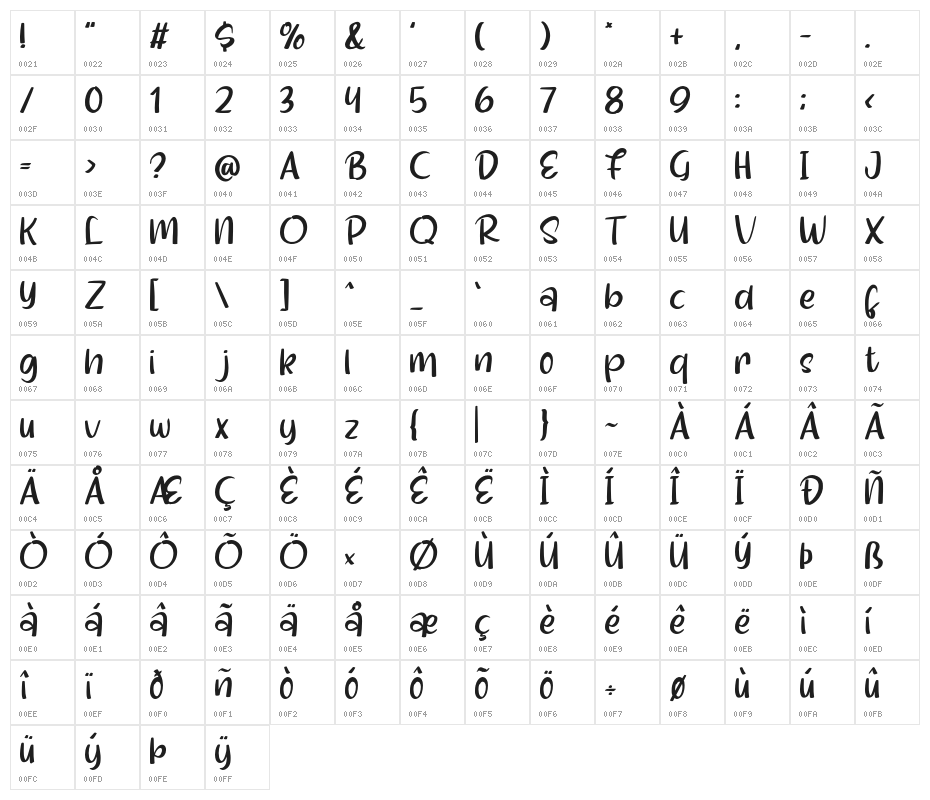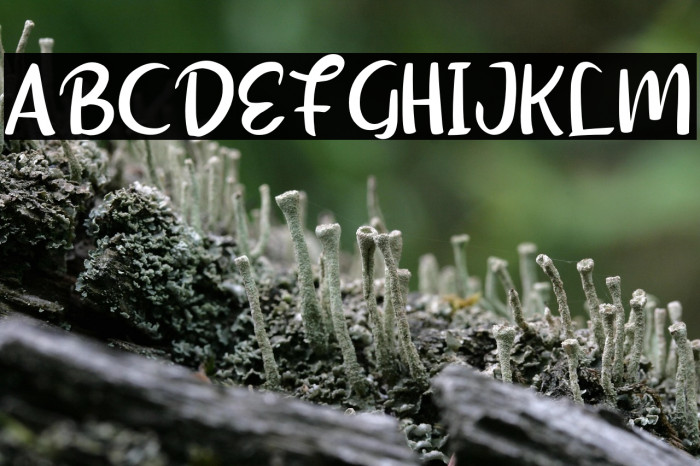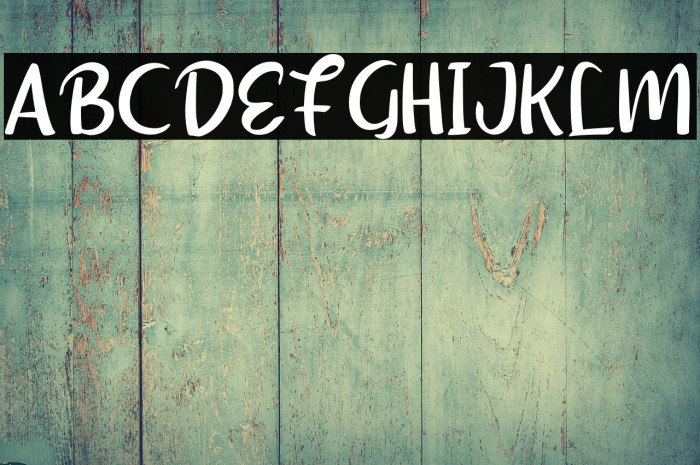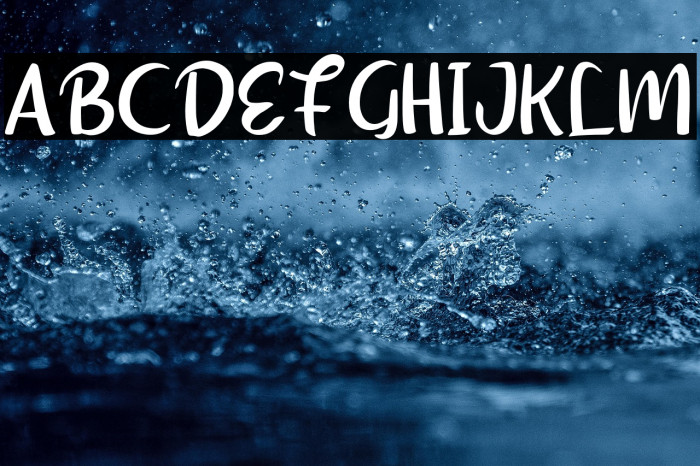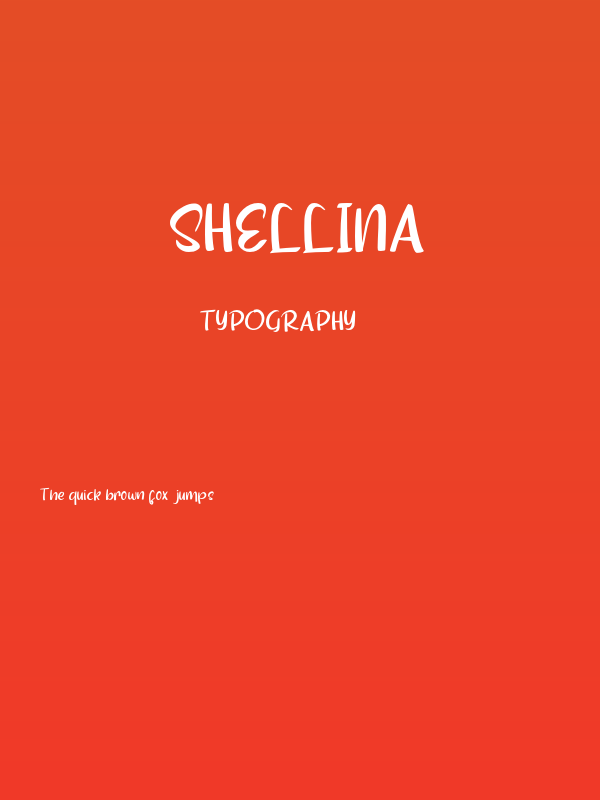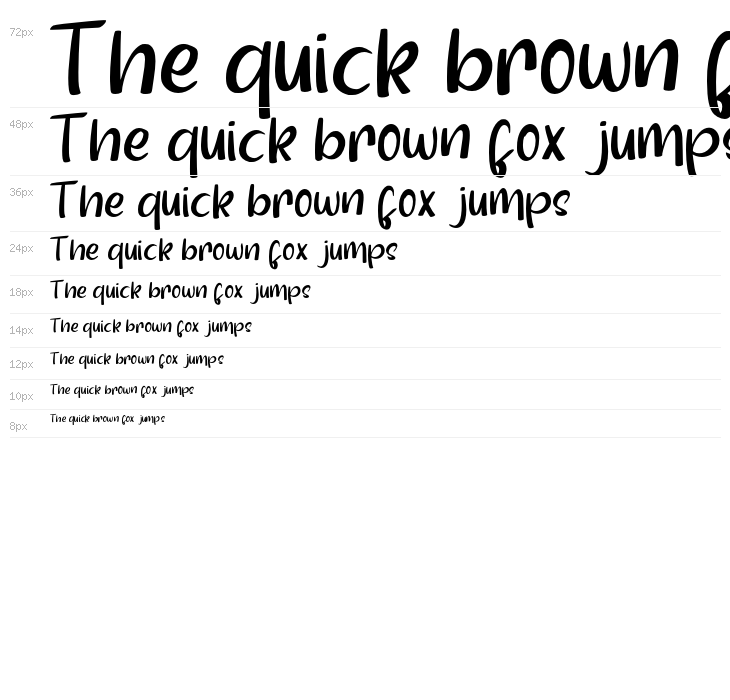
Shellina Font
Shellina Description
This font features a playful and casual handwritten style, characterized by its smooth, flowing curves and slightly uneven baseline. The letters exhibit a friendly and approachable appearance, with a moderate thickness that ensures readability while maintaining a relaxed aesthetic. The uppercase letters are bold and slightly larger, providing a strong presence, while the lowercase letters maintain a consistent flow. The numerals and special characters are designed to match the overall style, ensuring a cohesive look across all text elements. This font is versatile, suitable for projects that require a personal touch or an informal tone.
| Overall Style | Casual |
| Use Case | Headlines, Logos, Informal text |
| Proposed Projects | Ideal for greeting cards, invitations, personal branding, social media graphics, and informal presentations. |